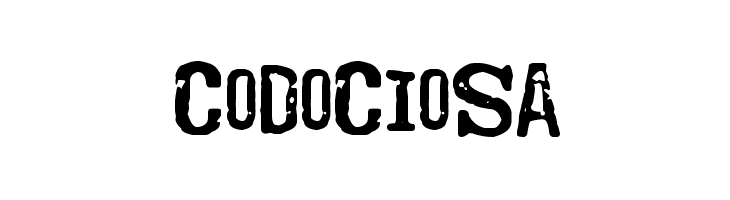
A bold, distressed font with a vintage, rugged appearance.
A modern, condensed font with tall, narrow letterforms and consistent stroke width.
A distressed, grunge-style font with a vintage, textured appearance.
A bold, textured font with diagonal line patterns and high contrast.
A bold, textured slab serif font with a vintage collegiate style.
A bold, decorative font with a distressed, collegiate style.
A playful, hand-drawn font with a scribbled texture and bold, sketch-like letters.
A bold, playful font with a bubbly, organic design.
A bold, 3D italic font with a textured, industrial look.
A bold, 3D font with a rugged, distressed texture and vintage appeal.